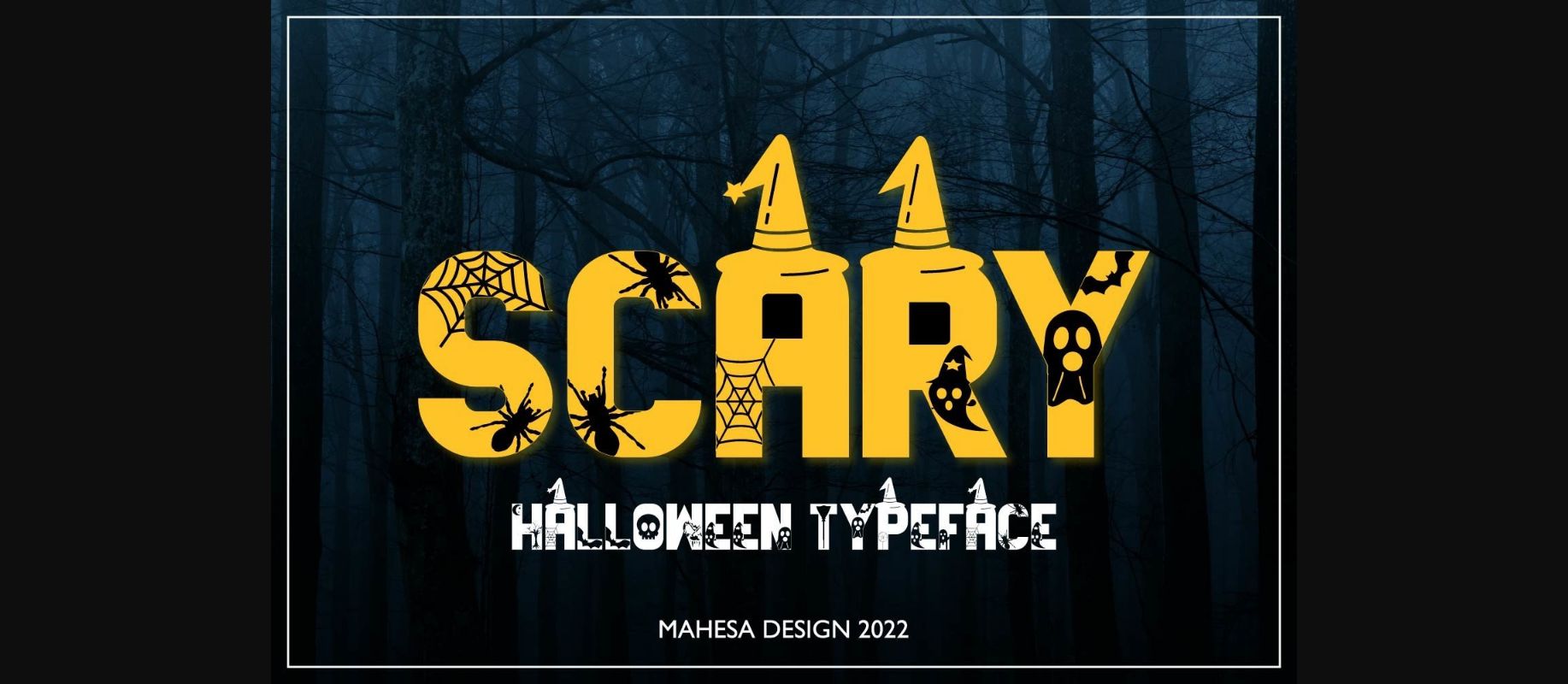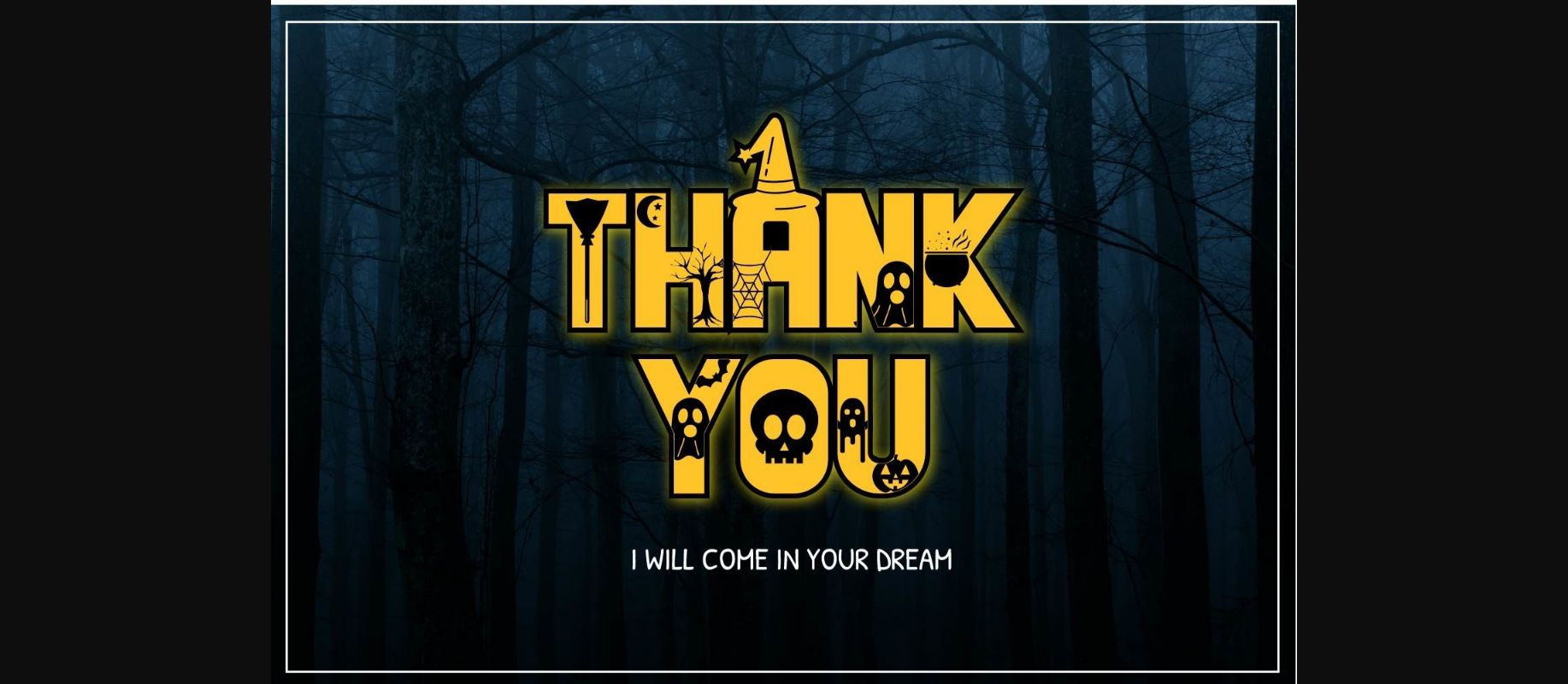
About Scary Font
Scary is a spooky decorative font. Get inspired by its incredibly youthful feel.
Masterfully designed to become a true favorite, this font has the potential to bring each of your creative ideas to the highest level!